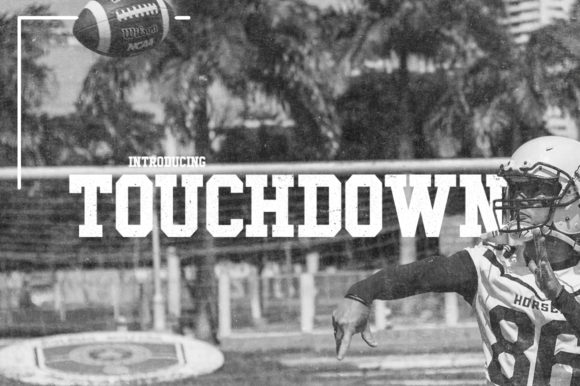
Introducing Touchdown Font, a bold and captivating slab serif font created by the talented team at Salt and Pepper Fonts. With its dynamic and sporty design, this font brings a vintage twist that will instantly elevate your design projects to new heights!
Are you tired of blending in with the crowd? Touchdown Font is here to change that! Its unique and eye-catching style will make your creations stand out from the competition. Whether you're designing a logo, poster, T-shirt, or website, this font will leave a lasting impression on your audience.
With Touchdown Font, you can unleash your creativity and make a statement. Its strong and confident letterforms exude power and determination, making it perfect for sports-related projects or any design that needs an extra boost of energy. Imagine the impact it will have on your team's jerseys or your gym's branding!
But this font isn't just about looks. It's also incredibly versatile and easy to use. Whether you're a seasoned designer or just starting out, Touchdown Font will be your trusty companion. Its carefully crafted characters ensure legibility at any size, guaranteeing that your message will be heard loud and clear.